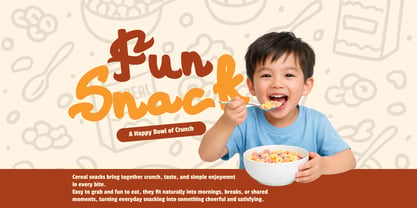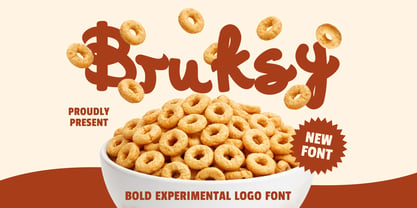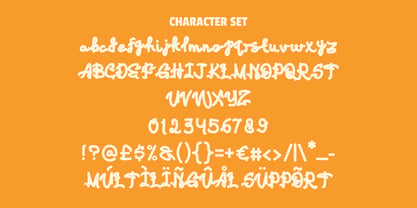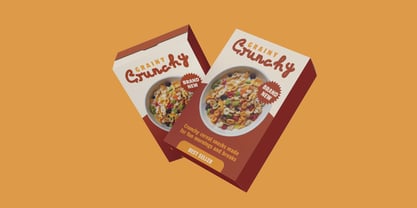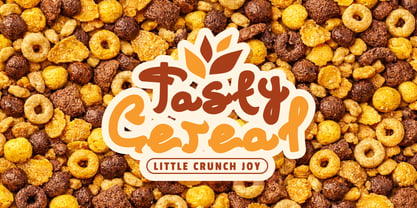
Bruksy
La familia tipográfica Bruksy fue diseñada por Yesie Erma Yunita y publicada por Shanaf. Bruksy contiene 1 estilos. Más información sobre esta familia
Bruksy Bold Experimental Logo Font delivers thick rounded strokes with lively hand-drawn energy. Each letter uses chunky weight, soft corners, and flowing curves that feel bold yet friendly. The forms look compact, expressive, and easy to notice from distance. Uneven rhythm adds personality and gives every word a custom logo feel. This style blends playful modern branding with energetic display lettering. It suits cereal brands, bakery products, candy labels, beverage packaging, and snack promotions. Use it for logos, packaging, posters, stickers, ads, menu boards, and social media titles. Strong shapes keep words readable in short headlines and product names. Bruksy Bold Experimental Logo Font helps brands look cheerful, memorable, and full of character.
Designed for packaging impact, this font works where attention matters fast. It fits food startups, dessert shops, coffee brands, juice bars, and family products. The handwritten motion creates warmth while the bold body keeps authority. Use it for mascot branding, promo banners, magazine covers, labels, greeting cards, and book covers. It also works for YouTube thumbnails, event flyers, and storefront signs. Pair it with clean sans text for balanced layouts and clear details. The playful curves support kid themes, fun campaigns, and joyful seasonal launches. Choose this typeface when your project needs strong shelf presence and fresh logo identity.
Diseñadores: Yesie Erma Yunita
Fundición: Shanaf